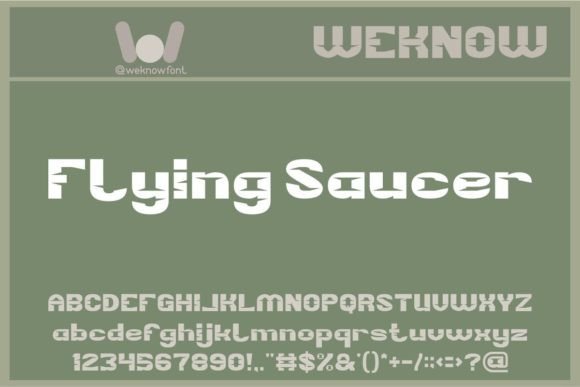
Flying Saucer: A Retro Sci-Fi Display Font
When designers need to capture the imagination of a futuristic world without getting lost in complex details, they often turn to Flying Saucer. This typeface is not just another decorative font; it is a specific tool designed to evoke the classic era of space exploration, mid-century modernism, and the golden age of science fiction. Whether you are creating a logo for a new tech startup or designing a poster for an indie movie, this basic techno-scifi display font offers a distinct visual language that speaks instantly to your audience.
The Essence of a Techno-Scifi Display Font
At its core, Flying Saucer belongs to the category of display fonts. Unlike body text fonts used for long paragraphs, display fonts are crafted for impact at larger sizes. They are meant to grab attention immediately. The design philosophy behind Flying Saucer leans heavily into the aesthetic of the 1950s and 60s, a time when humanity first began dreaming seriously about leaving Earth. The letterforms feature rounded edges, geometric shapes, and a sense of motion that mimics the smooth curves of a flying saucer itself.
This font avoids the sharp, aggressive angles often seen in cyberpunk typography. Instead, it embraces a friendlier, more approachable version of the future. It feels optimistic rather than dystopian. For creators who want their projects to feel nostalgic yet forward-thinking, this balance is crucial. The simplicity of the strokes ensures that the characters remain legible even when stylized, making it a practical choice for various applications where clarity meets character.
Why Choose Flying Saucer for Your Brand Identity?
In the crowded marketplace of digital and physical media, standing out requires a unique voice. Flying Saucer provides a ready-made identity for brands that operate in creative, entertainment, or technology sectors. Its value lies in its ability to communicate a theme before a single word is read. When a viewer sees this font, they immediately associate it with innovation, exploration, and fun.
- Instant Recognition: The style is iconic. It signals "science fiction" or "space" faster than any other descriptive text could.
- Versatility in Tone: While it is sci-fi themed, it can be playful for cartoons or sleek for corporate tech identities.
- Cost-Effective Design: Using a pre-designed font like this saves hours of custom lettering work while delivering a professional look.
For small business owners and entrepreneurs, particularly those in the apparel industry or event planning, having a strong visual hook is essential. Imagine a t-shirt brand focused on retro gaming or a podcast discussing astronomy. Applying Flying Saucer to their logos creates an immediate connection with their target demographic. It tells the customer exactly what kind of experience they are about to have.
Practical Applications Across Industries
The versatility of this techno-scifi display font extends far beyond simple headlines. Because of its clean lines and balanced weight, it adapts well to different mediums. Let's explore how it fits into real-world scenarios.
Apparel and Merchandise
In the fashion world, typography is often the star of the show. Flying Saucer works exceptionally well on t-shirts, hoodies, and hats. Its bold shapes hold up well when printed on fabric, maintaining visibility even from a distance. Designers often use it for band merchandise, festival gear, or streetwear collections that pay homage to pop culture history. The font's curvature allows it to wrap around circular designs or fit neatly within badge-like graphics common in apparel branding.
Digital Content and Social Media
For content creators on platforms like YouTube and Instagram, thumbnails and story overlays are critical. A video about space documentaries or a post about a new sci-fi book needs a title treatment that pops. Flying Saucer offers high contrast and readability on mobile screens. It helps break up the visual monotony of standard sans-serif fonts often used in social media templates. You can use it for channel banners, episode titles, or promotional graphics to give your digital presence a cohesive, thematic edge.
Print Media and Entertainment
Whether you are designing a magazine cover, a comic book panel, or a movie poster, the demand for impactful headlines is constant. In the publishing world, this font serves as an excellent choice for chapter headings in young adult novels or section breaks in graphic novels. For film and game developers, it is perfect for title cards, loading screens, and UI elements that need to establish a setting quickly. A movie poster featuring this typeface suggests an adventure filled with wonder, appealing to both children and adults who grew up loving classic sci-fi.
Key Considerations Before Implementation
While Flying Saucer is a powerful tool, it is not suitable for every situation. Understanding its limitations is just as important as knowing its strengths. As a display font, it should generally be reserved for short bursts of text. Using it for long paragraphs can strain the reader's eyes due to its stylized nature and lack of optimized x-height for continuous reading.
From book covers to YouTube thumbnails, the applications are endless. The key is to let the font do the heavy lifting of setting the mood while you focus on refining the rest of your composition. With its blend of retro charm and futuristic promise, Flying Saucer remains a go-to resource for anyone looking to make their mark in the creative industries.